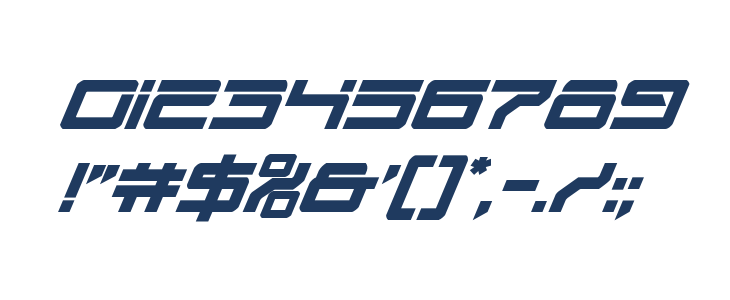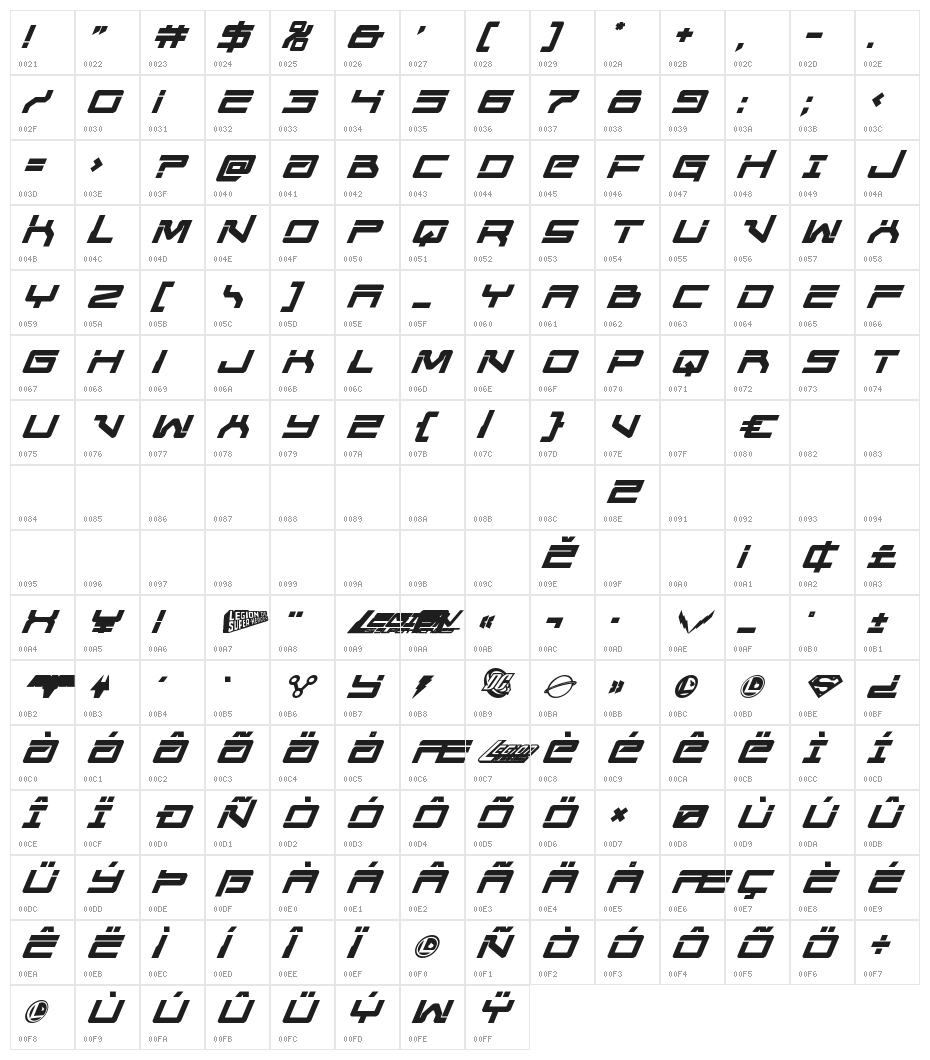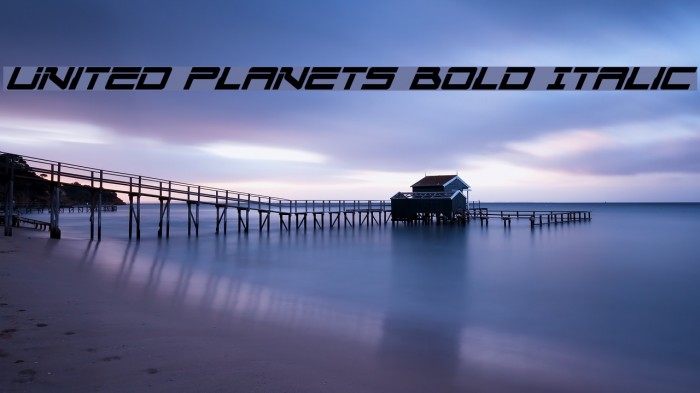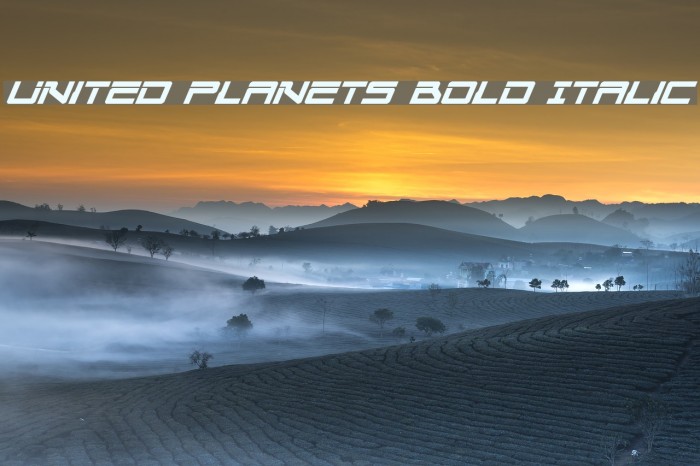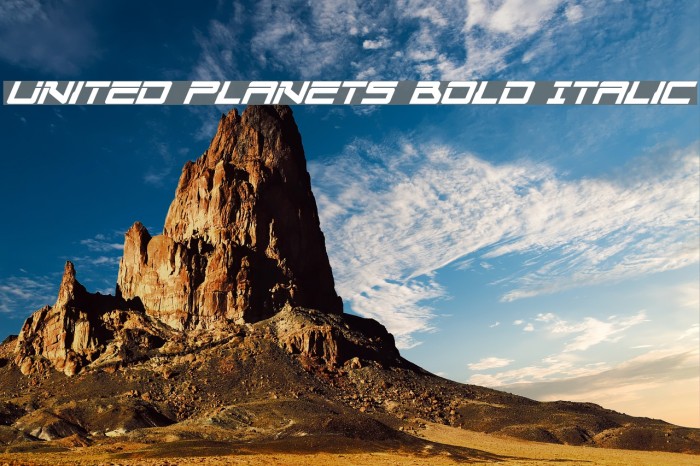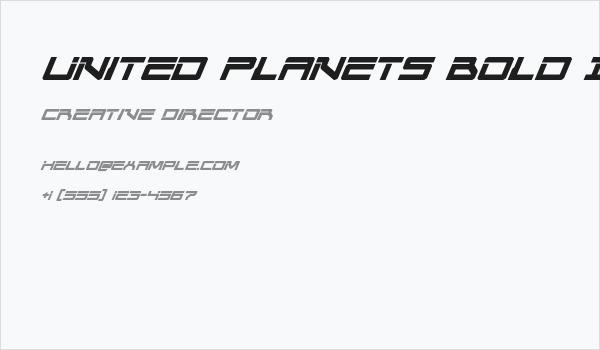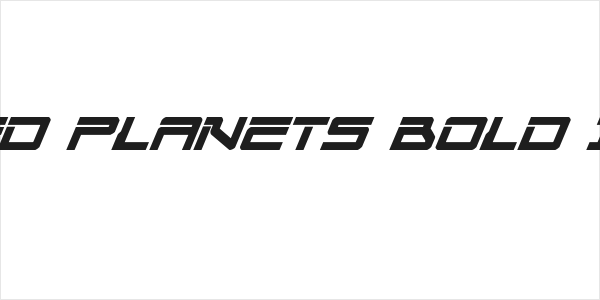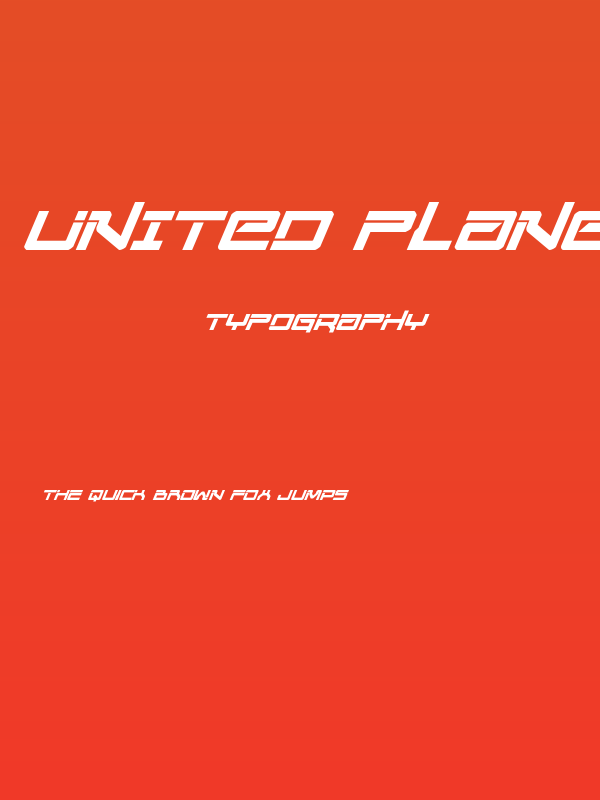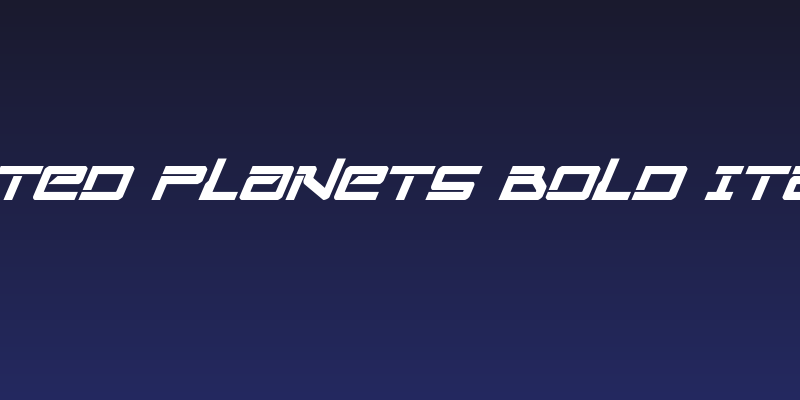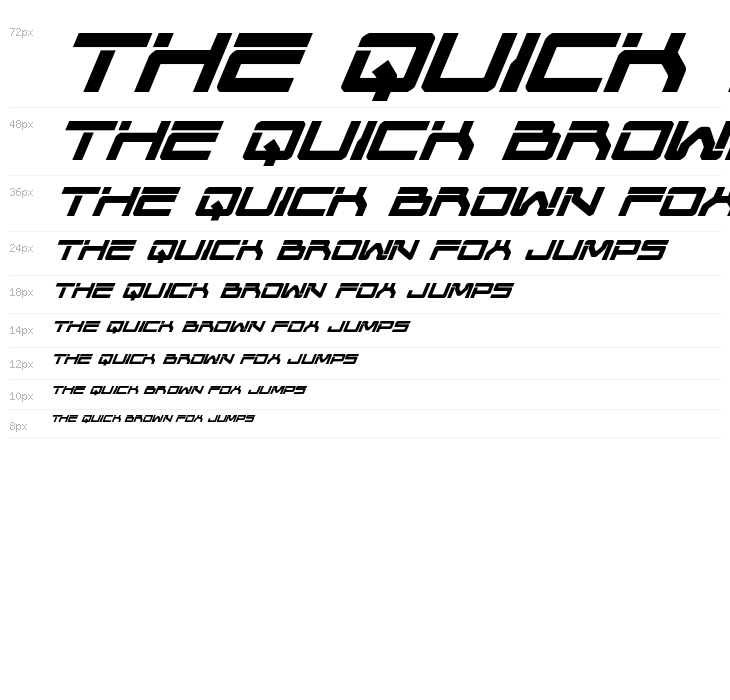
United Planets Bold Italic Font
United Planets Bold Italic Description
This font features a futuristic and dynamic design with a bold and italicized style. The characters are angular and geometric, giving a sense of motion and speed. The uppercase and lowercase letters maintain a consistent slant, enhancing the italic effect. The numbers and special characters follow the same design principles, ensuring uniformity across all glyphs. This font is ideal for projects that require a modern and edgy look, such as technology branding, sci-fi themes, or sports-related designs.
| Proposed Projects | Ideal for technology branding, sci-fi themes, sports-related designs, and dynamic advertising. |